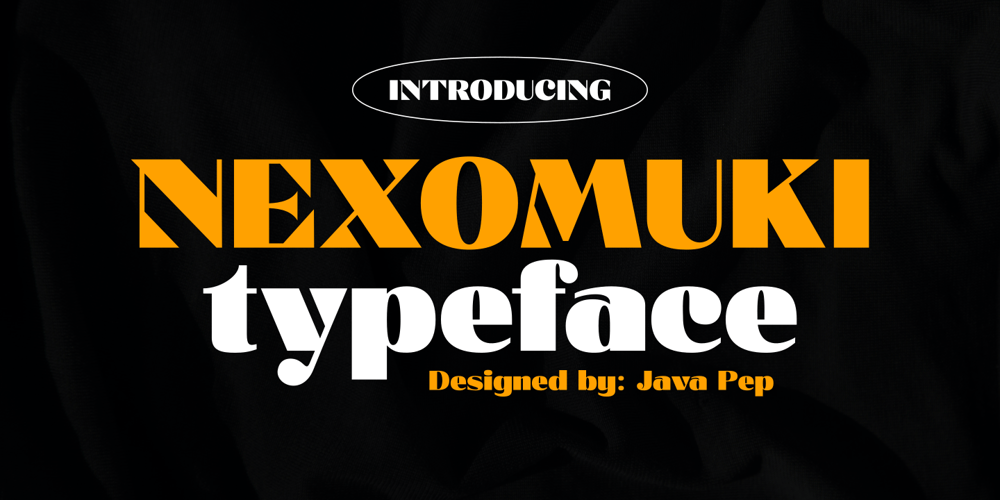
Nexomuki Font Family was designed by Java Pep and published by Java Pep. Nexomuki contains 2 styles and family package options. Proudly present the fresh from the oven, modern bold sans serif font. Nexomuki made with rising feel modern, bold, but still looks elegant too. Perfect pairing among uppercase and lowercase characters is suitable for your project design such as logotype, branding, headline text, advertising, slogan, qoute, magazine, publishing, and more. This font is already with multilingual support more than 20 leanguanges too.